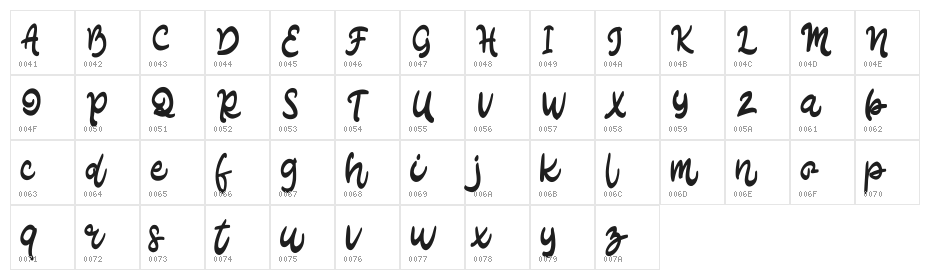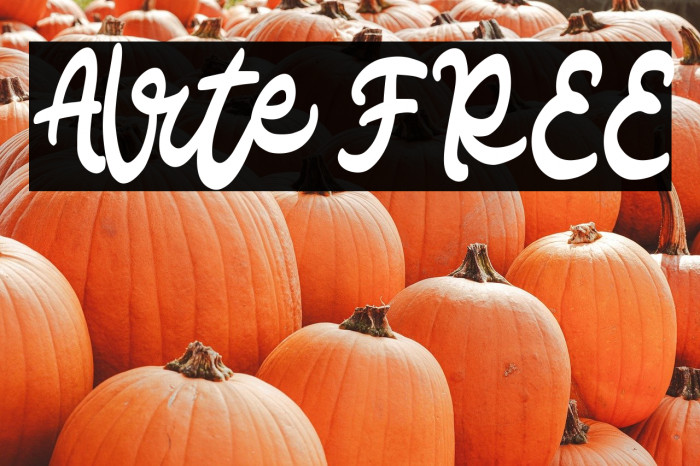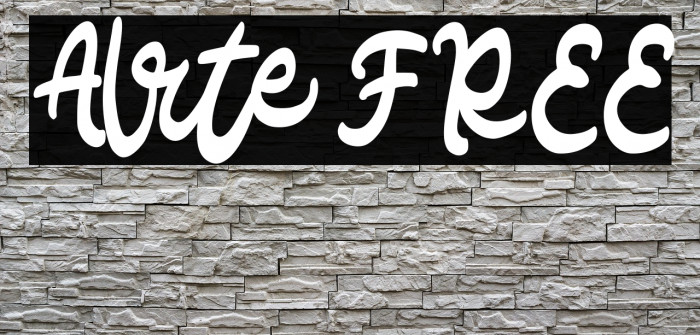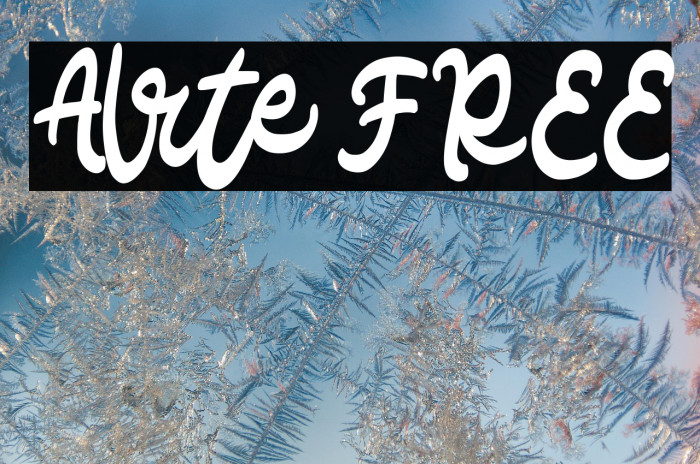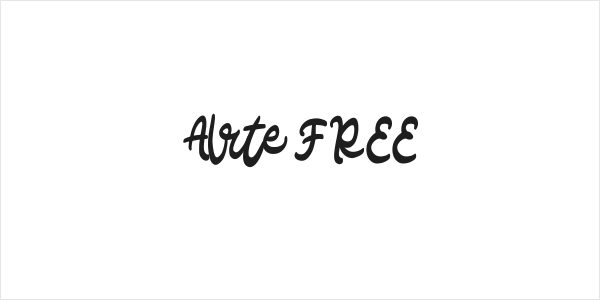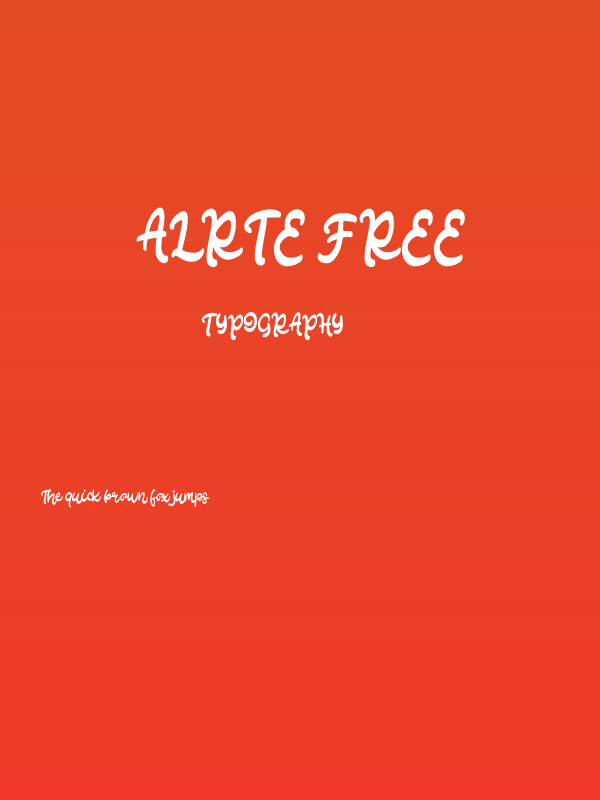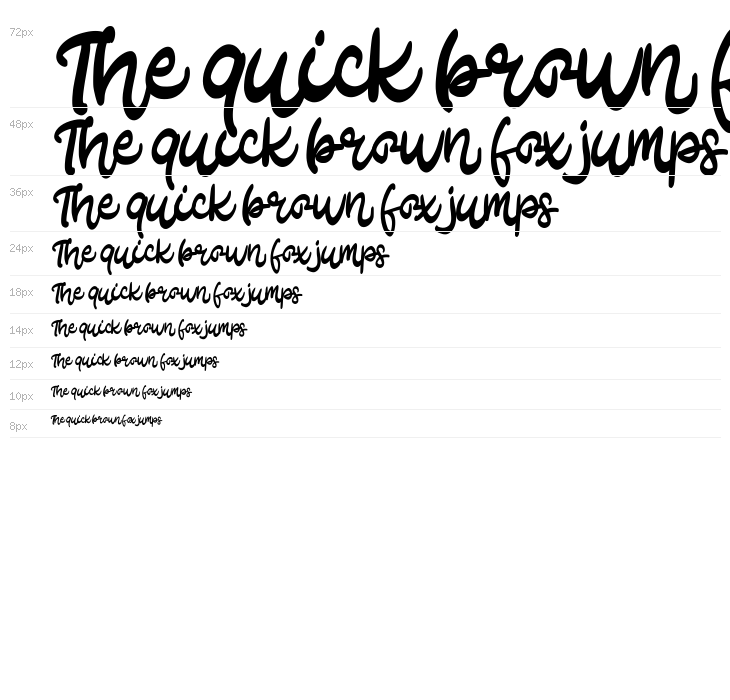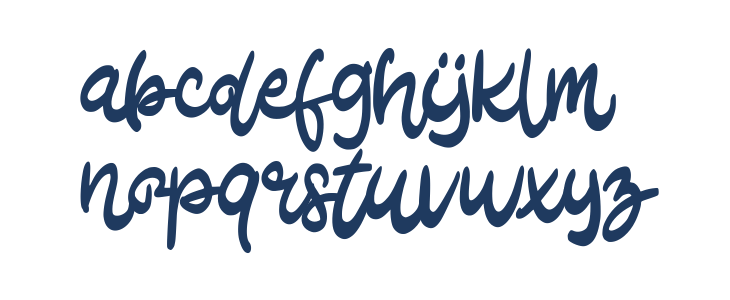
Alrte FREE Font
Alrte FREE Description
This font features a bold and flowing script style with a handwritten appearance. The characters are interconnected, giving a sense of continuity and fluidity. The strokes are thick and consistent, providing a strong visual impact. The uppercase letters are slightly more formal, while the lowercase letters maintain a casual and approachable feel. The font's design is playful yet elegant, making it suitable for creative and artistic projects. The overall look is dynamic and expressive, capturing attention with its unique charm.
| Proposed Projects | Ideal for invitations, greeting cards, branding, and artistic designs. |